Japanese Yakumono (Punctuation Marks and Symbols) 03: “Parentheses”
I would like to talk about convoluted parentheses this time. In addition to having several types, such as parentheses “()” and square brackets “「」,” there are open and closed versions of each, for horizontal typesetting and vertical typesetting, and full-width and half-width – it is convoluted just to think about the required glyphs.
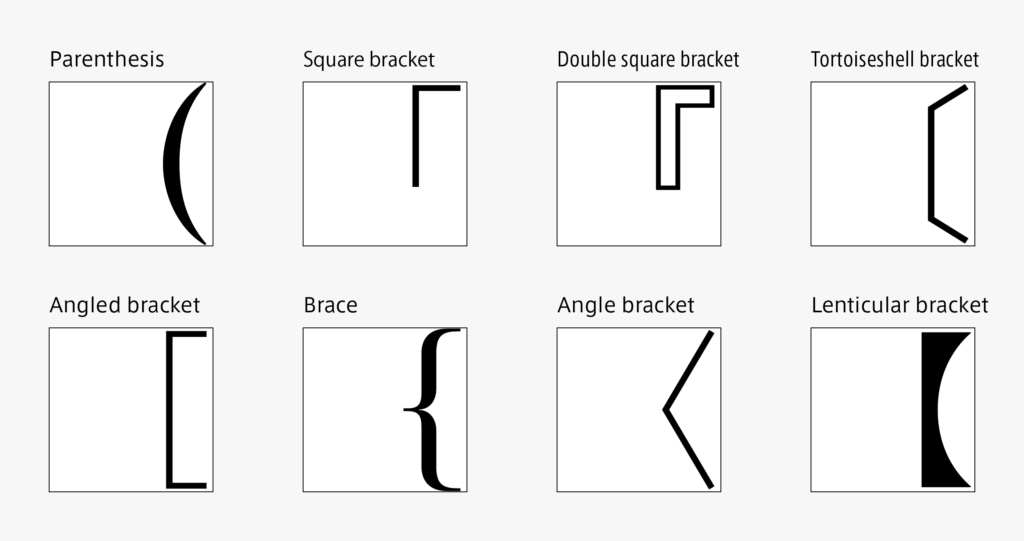
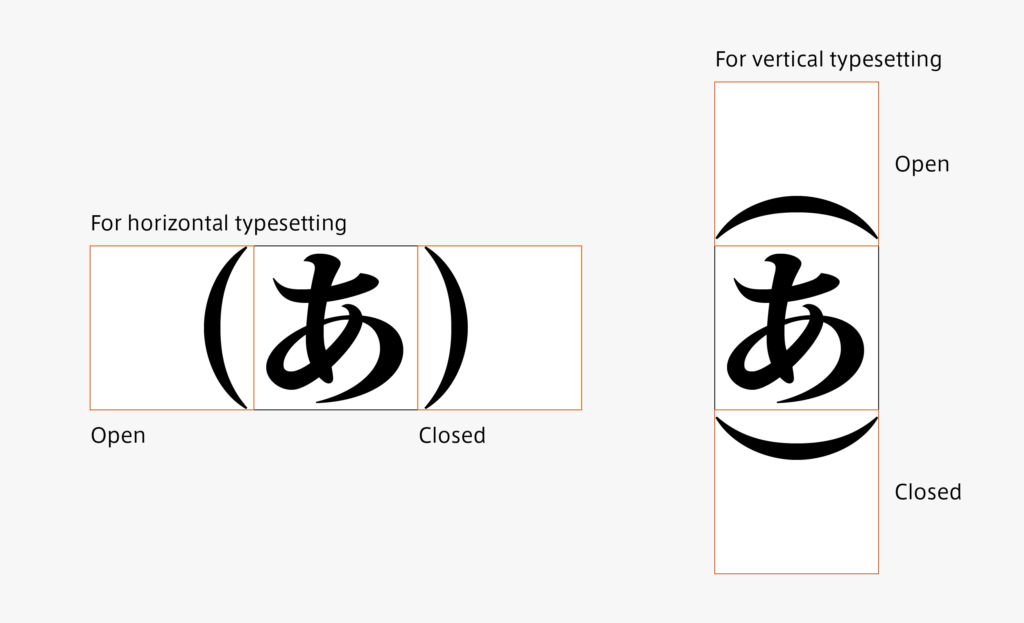
Care must be taken in designing parentheses that even full-width parentheses are designed at half-width. As there are a variety of settings for the space before and after parentheses in typesetting, when the design of a parenthesis exceeds half-width, it may stick to the next character. Half-width parentheses exist apart from full-width parentheses. However, glyphs used in typesetting are basically full-width.
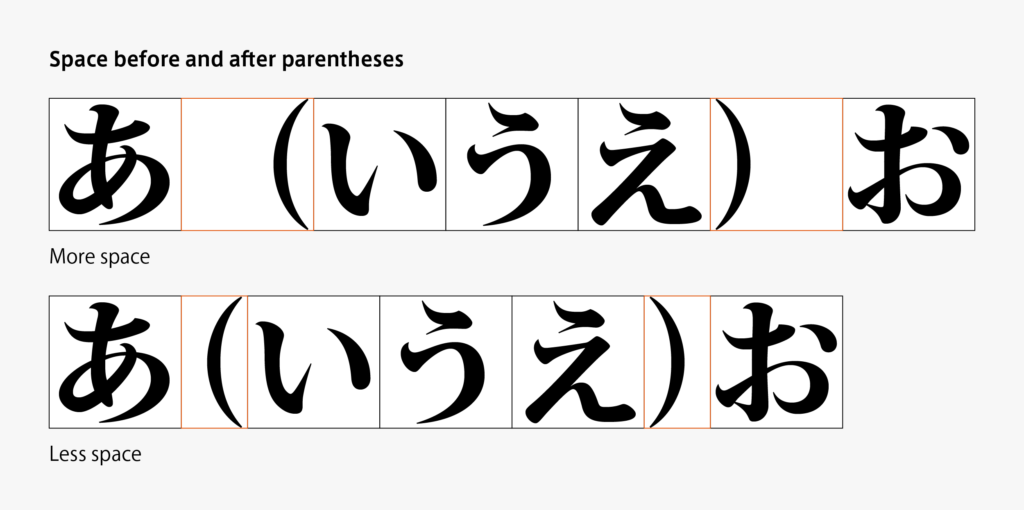
For some parentheses, both parentheses for Japanese and Latin are available, respectively. Japanese characters are created one character by one character within the square frame; the height of Latin is set above and below the base line – parentheses must be adjusted in accordance with each character group. It is often said that Latin parentheses look a bit lower compared to Japanese, which is because Latin parentheses are adjusted in accordance with the Latin containing descender.
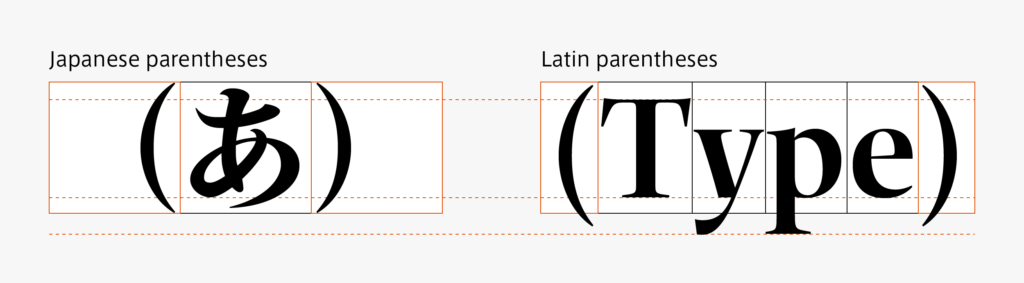
Generally, half-width parentheses indicate the above-mentioned Latin parentheses. Latin parentheses, however, are not half-width, but proportional in terms of the character width category in creation – it is complicated.